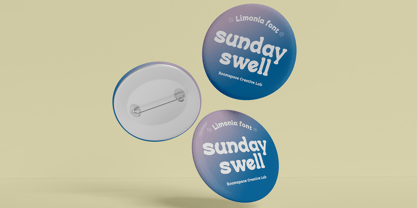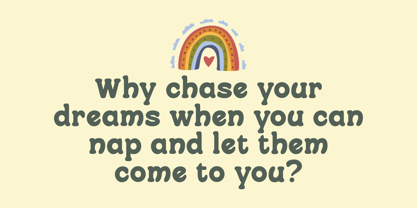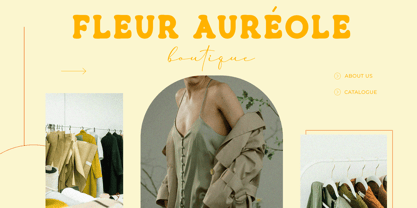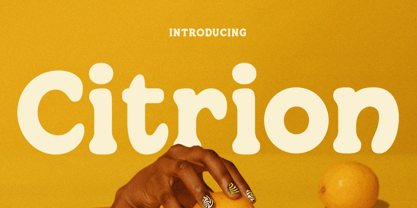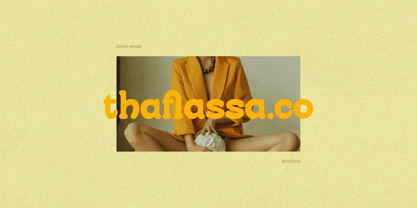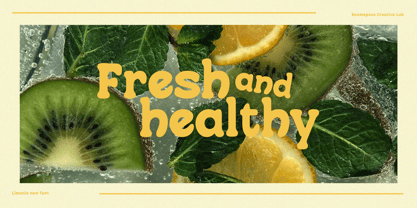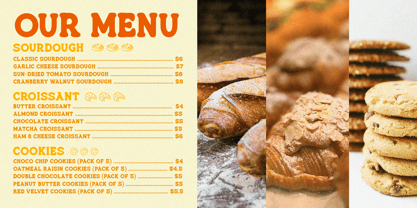
Citrion
The Citrion Font Family was designed by Bakhrudin Ja'far and published by Jafar07. Citrion contains 2 styles and family package options.
Citrion is a bold, rounded display font that exudes a playful personality coupled with retro charm. Its smooth curves and chunky forms create a friendly and dynamic vibe, ensuring it stands out in any design composition. Ideal for a variety of applications, including logos, packaging, posters, editorial layouts, social media graphics, and lifestyle branding, Citrion offers a perfect blend of versatility and character. This typeface's warm and creative style enhances projects, whether you're designing bold headlines or striking brand identities. Perfect for modern cafés, trendy fashion lines, or retro-inspired campaigns, Citrion keeps your designs fresh, fun, and unforgettable.